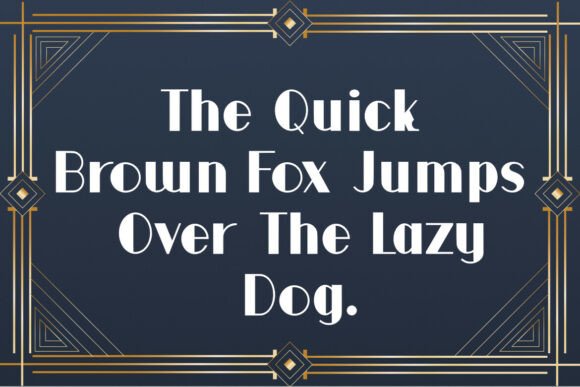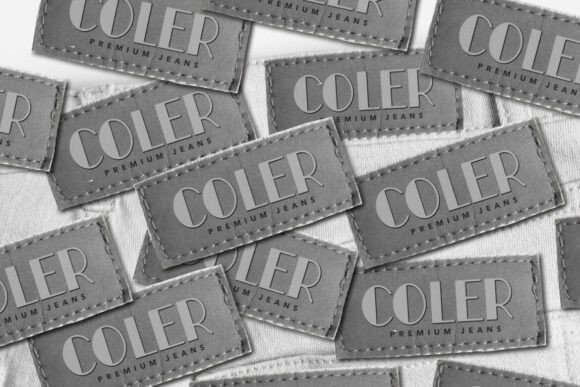
Introducing Coler Art Deco Font: Timeless Glamour for Modern Creations
In the world of typography, few styles evoke the same level of sophistication and luxury as Art Deco. This iconic design movement, popularized during the 1920s, is characterized by its geometric balance, elegant lines, and luxurious aesthetic. Coler Art Deco Font is a modern interpretation of this classic style, bringing a sense of timeless glamour and refinement to any creative project.
The Essence of Art Deco in Coler
Coler Art Deco is more than just a font – it’s an experience. Inspired by the golden age of Art Deco design, this typeface embodies the spirit of 1920s elegance. Each letterform is crafted to evoke confidence, sophistication, and artistic precision, making it perfect for designers and crafters seeking to add a touch of classic luxury to their work.
With its bold yet graceful lines, Coler Art Deco strikes the perfect balance between structure and style. The font’s geometric balance and elegant curves create a sense of harmony, making it ideal for a wide range of applications, from logos and branding to invitations and editorial titles.
Crafting Timeless Designs with Coler
Coler Art Deco is designed to bring a sense of sophistication and refinement to any creative project. Whether you’re a designer looking to create a luxurious brand identity or a crafter seeking to add a touch of elegance to your work, this font is the perfect choice.
Here are just a few ways you can use Coler Art Deco to elevate your designs:
- Logos and Branding: Create a lasting impression with a logo that exudes luxury and sophistication. Coler Art Deco’s bold and elegant lines make it perfect for high-end brands seeking to establish a strong visual identity.
- Invitations and Events: Add a touch of classic glamour to your invitations, wedding stationery, and event branding with Coler Art Deco. This font is sure to make your guests feel like they’re in for a special treat.
- Editorial Titles: Bring a sense of sophistication and refinement to your editorial titles with Coler Art Deco. This font is perfect for magazine covers, book titles, and other high-end publications.
The Art Deco Difference
So, what sets Coler Art Deco apart from other fonts? Here are just a few key features that make this typeface truly special:
- Geometric Balance: Coler Art Deco’s geometric balance creates a sense of harmony and stability, making it perfect for designs that require a sense of structure and elegance.
- Elegant Lines: The font’s elegant lines and curves add a touch of sophistication and refinement to any design.
- Luxurious Letterforms: Each letterform in Coler Art Deco is crafted to evoke confidence, sophistication, and artistic precision, making it perfect for high-end designs.
Why Choose Coler Art Deco?
With so many fonts to choose from, why choose Coler Art Deco? Here are just a few reasons why this typeface stands out:
- Timeless Appeal: Coler Art Deco’s classic design ensures that your work will remain timeless and stylish for years to come.
- Versatility: This font is perfect for a wide range of applications, from logos and branding to invitations and editorial titles.
- High-End Quality: Coler Art Deco’s luxurious aesthetic and attention to detail make it perfect for high-end designs that require a sense of sophistication and refinement.
In conclusion, Coler Art Deco Font is a sophisticated typeface that brings a sense of timeless glamour and modern refinement to any creative project. With its geometric balance, elegant lines, and luxurious letterforms, this font is perfect for designers and crafters seeking to add a touch of classic luxury to their work.
Whether you’re looking to create a luxurious brand identity, add a touch of elegance to your invitations, or bring a sense of sophistication to your editorial titles, Coler Art Deco is the perfect choice. So why wait? Discover the art of timeless design with Coler Art Deco Font today!